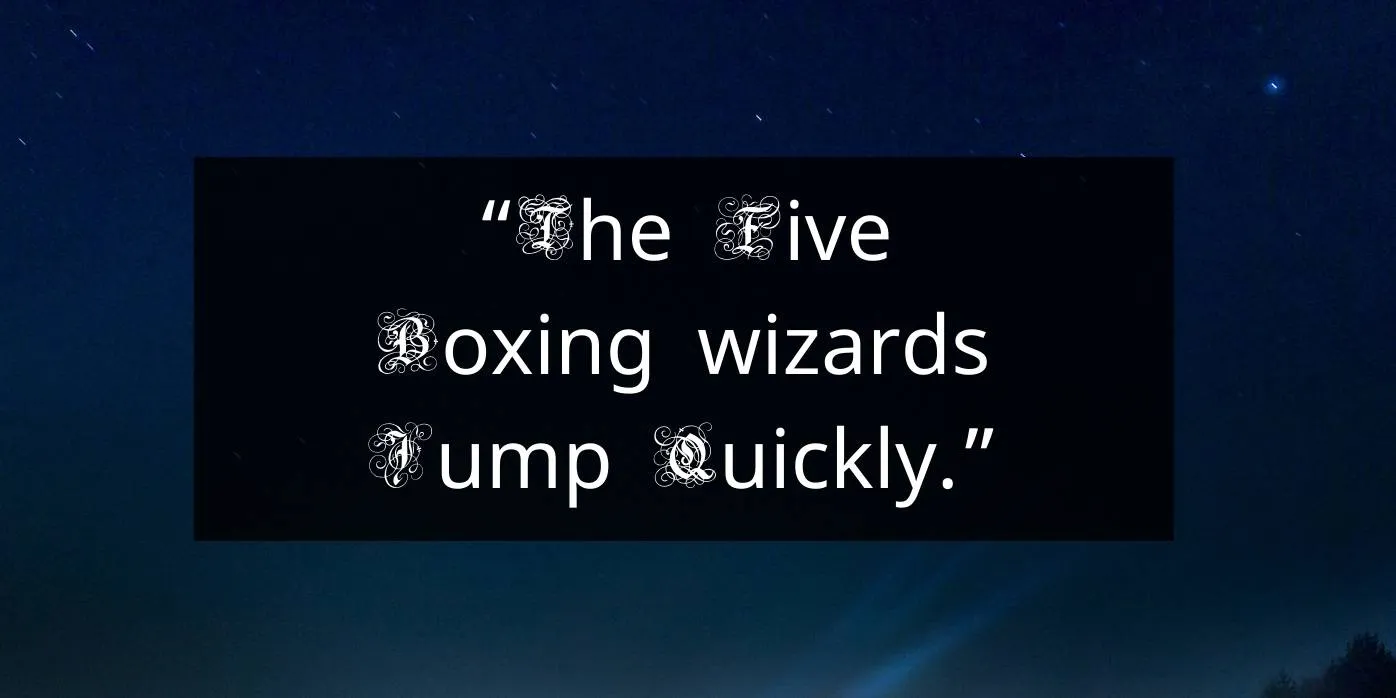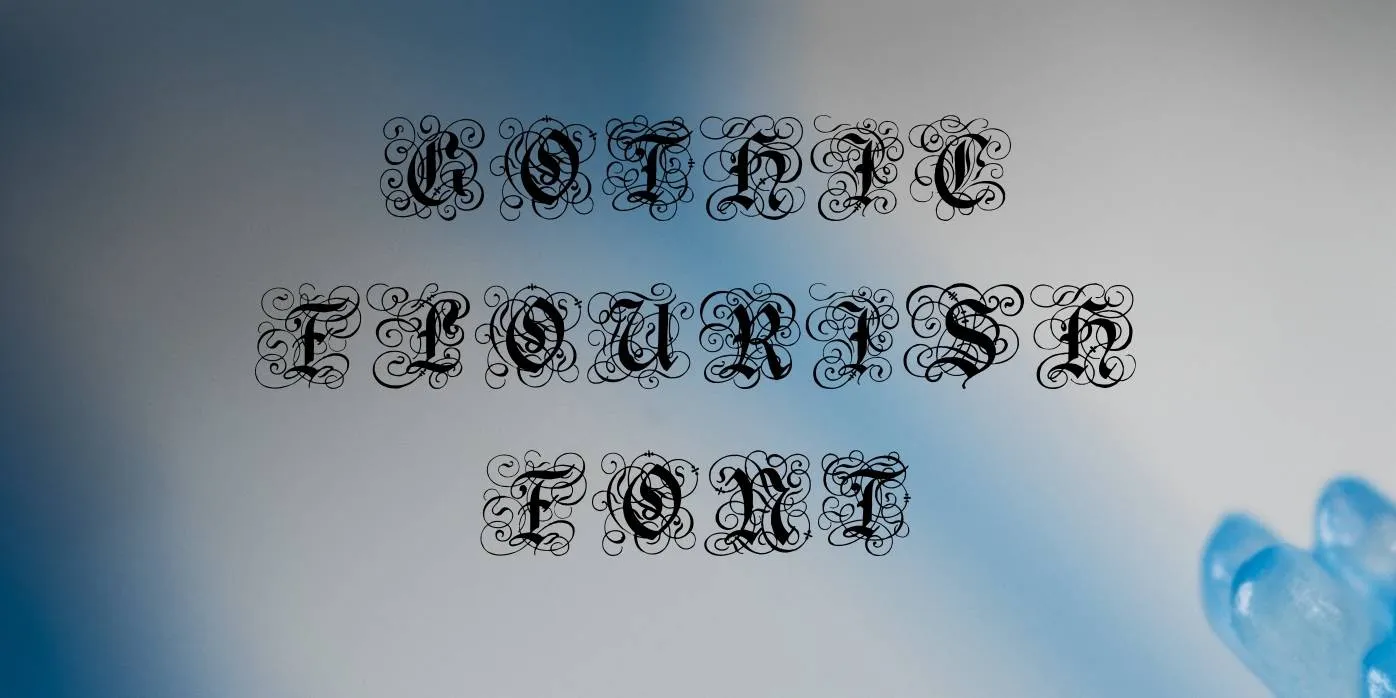
Gothic Flourish Font
Gothic Flourish Font belongs to the Decorative category. It was created by Design Cuts and is available for free personal use. This cute font is perfect for creating elegant and dramatic headlines, as well as adding a touch of gothic flair to any design project. Gothic Flourish Font features intricate flourishes and ornate details that make it ideal for creating statement designs.
In the year 2000, this marvelous typeface was released in the industry. This cute typeface is best for CSS and SVG. Stay Alive Font is similar to this stunning typeface. This cozy font is available in uppercase and lowercase letters, as well as numbers and punctuation marks.
It also supports multiple languages. This gorgeous Font is a great choice for creating stylish designs that stand out from the crowd. So, if you are looking for such a cozy Font to add to your design toolkit, then this font is a great option. You will use its generator tool for different graphic designs.